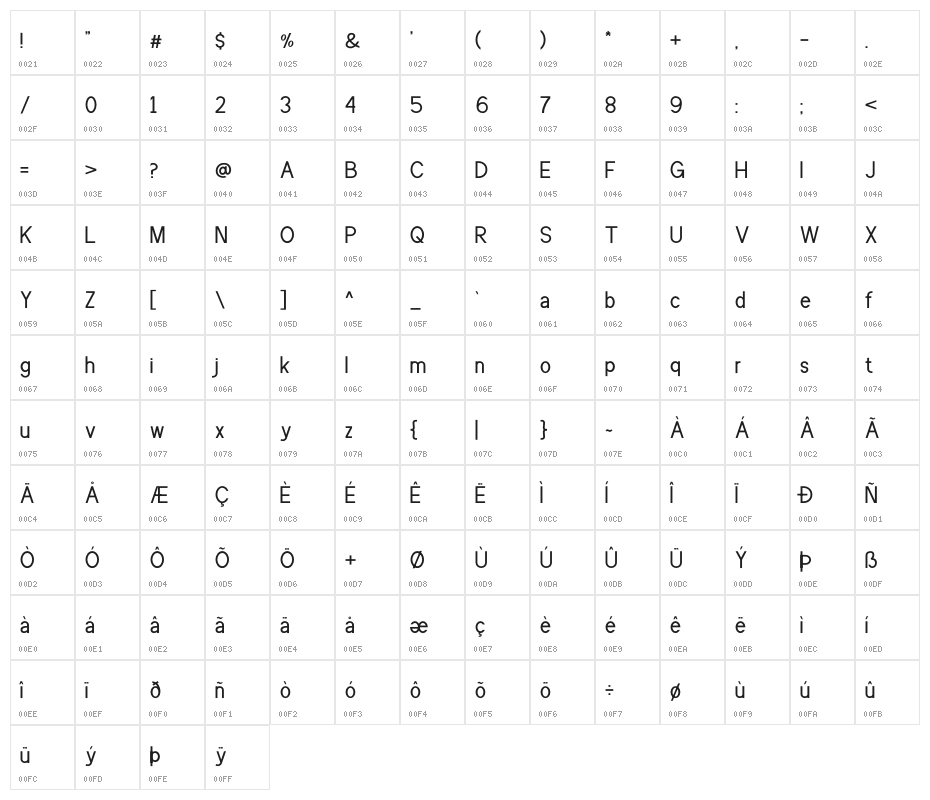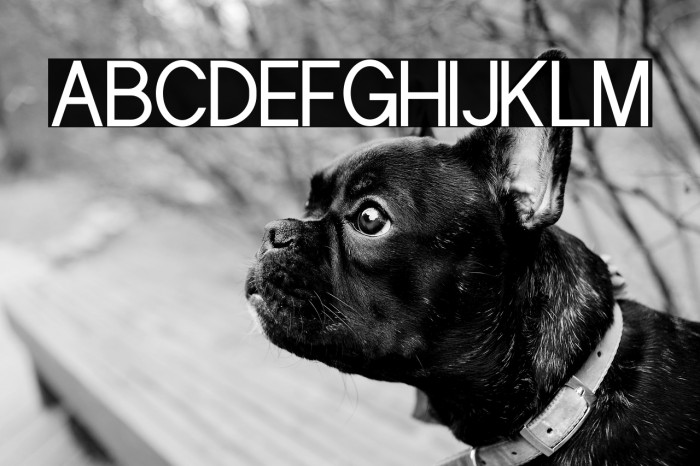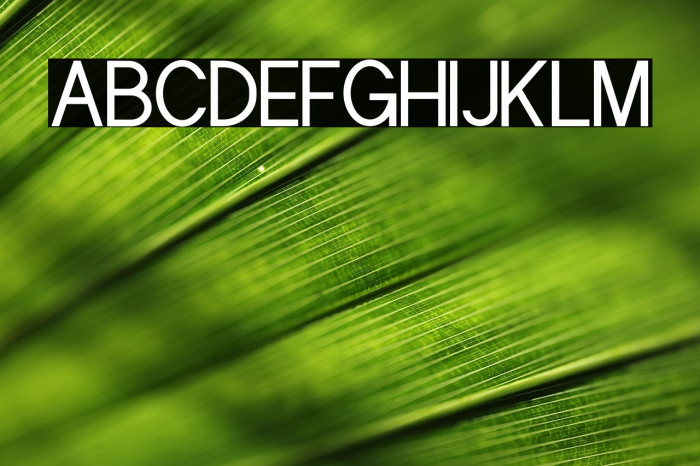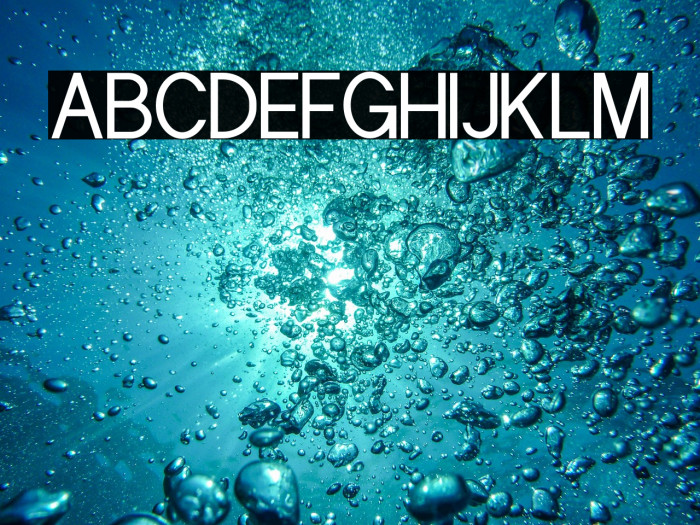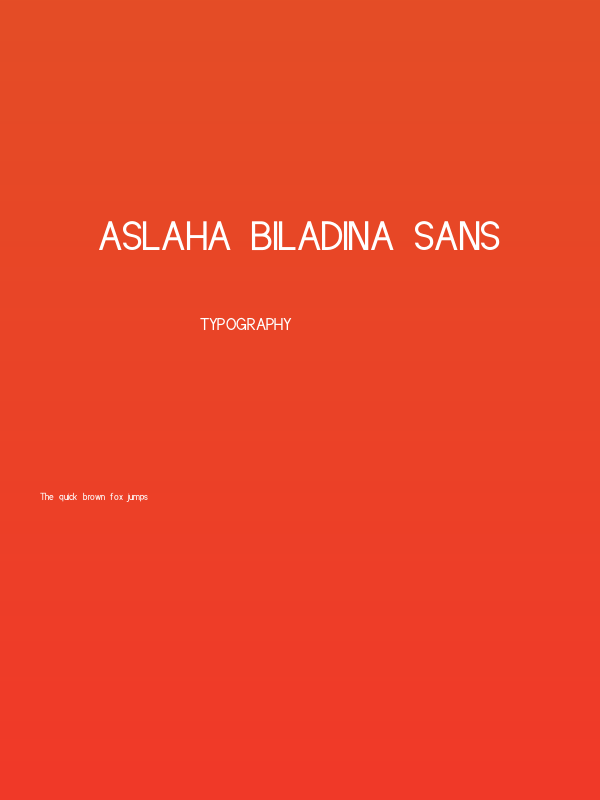
Aslaha Biladina Sans Font
Aslaha Biladina Sans Description
This font features a clean and modern sans-serif style, characterized by its simplicity and readability. The letters are evenly spaced with a consistent stroke width, providing a balanced and harmonious appearance. The uppercase and lowercase letters maintain a uniform height, contributing to its structured and professional look. The numerals are clear and distinct, making them easily legible. Special characters are designed with the same attention to clarity and simplicity, ensuring they integrate seamlessly with the rest of the typeface.
| Proposed Projects | Ideal for corporate branding, web design, user interfaces, and editorial layouts due to its clarity and modern appeal. |